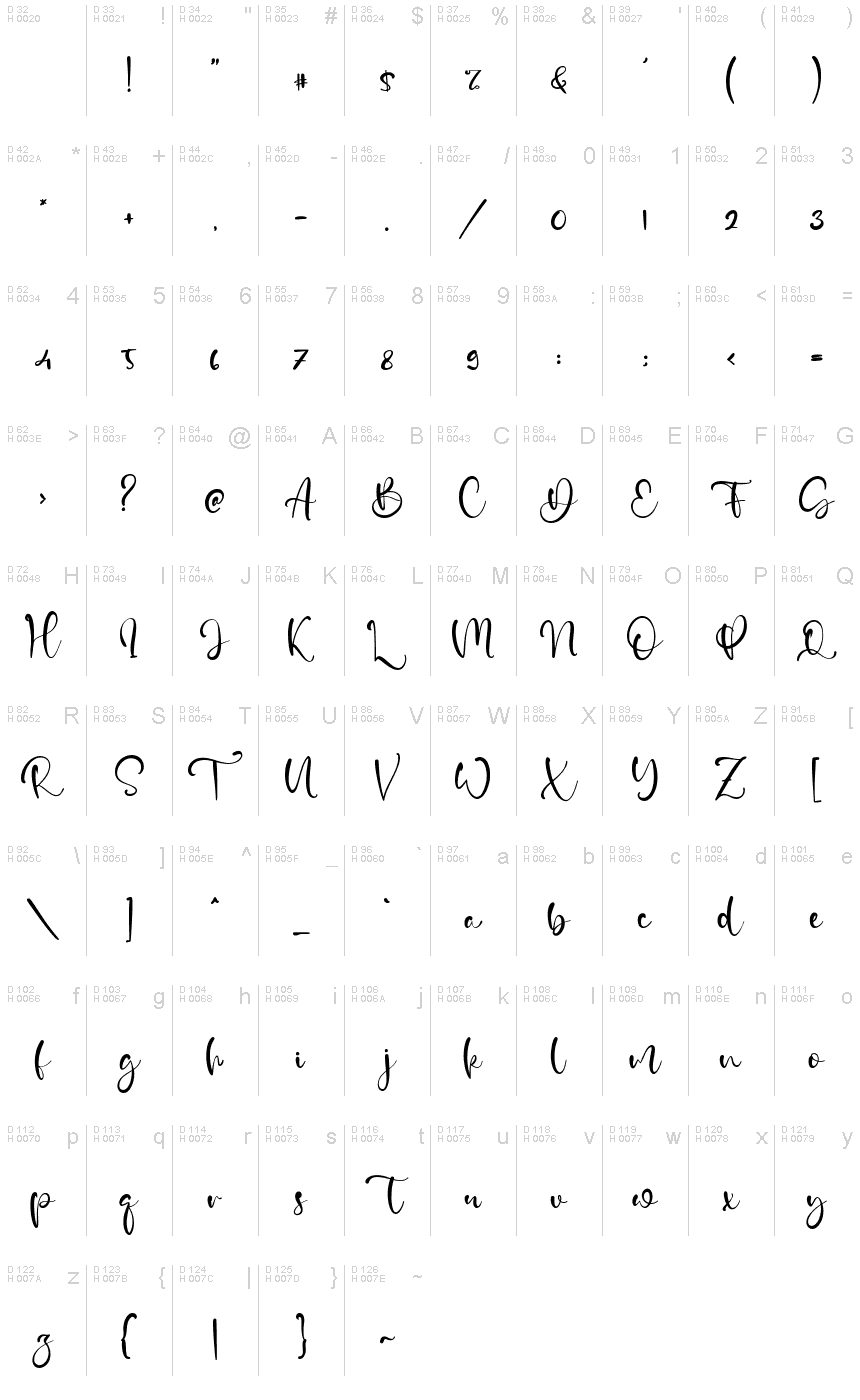
Sean Gary
Sean Gary, the latest modern script font from Kong Font, is here to add a touch of elegance to your projects. This semi-light typeface boasts a unique and sophisticated design, making it perfect for creative endeavors such as wedding invitations, greeting cards or even branding materials. Whether you're looking to add a personal touch to your designs or elevate your brand's identity, Sean Gary's flowing lines and graceful curves are sure to impress. With its distinct look and feel, this font is an ideal choice for any project that requires a touch of class and refinement.